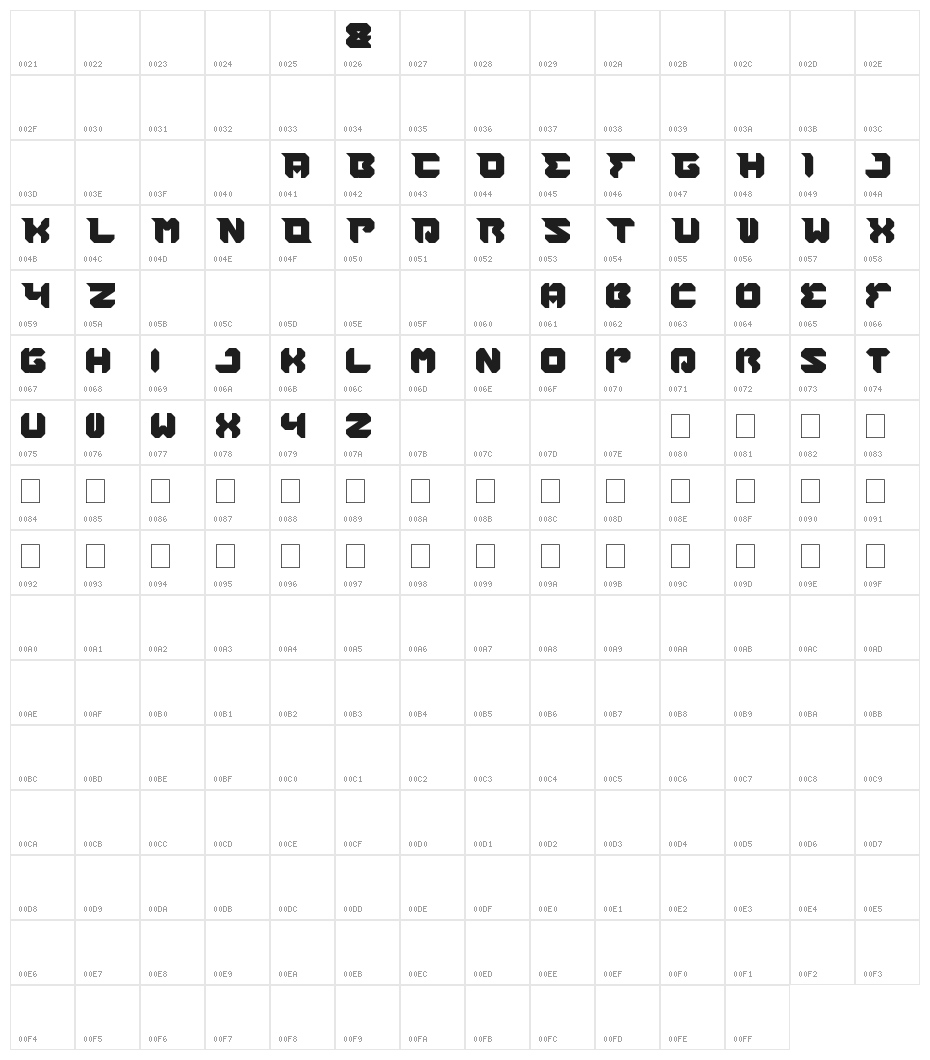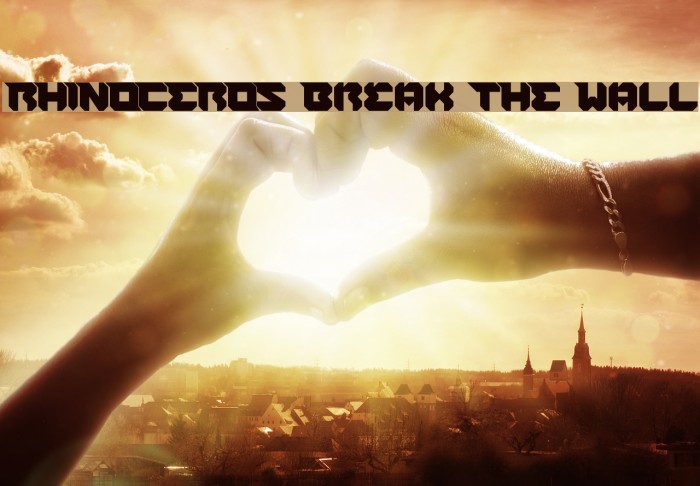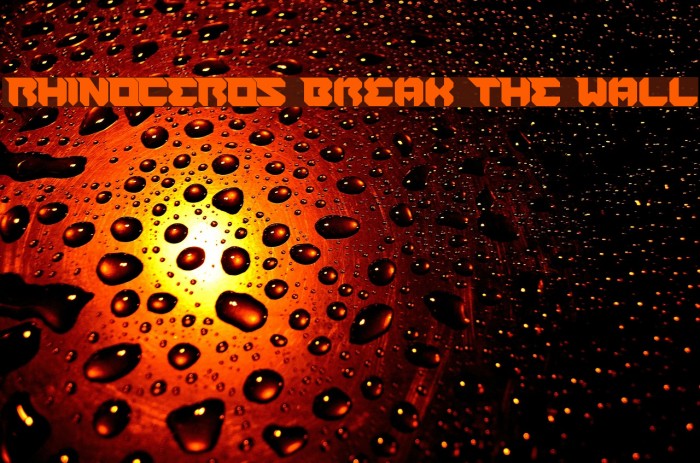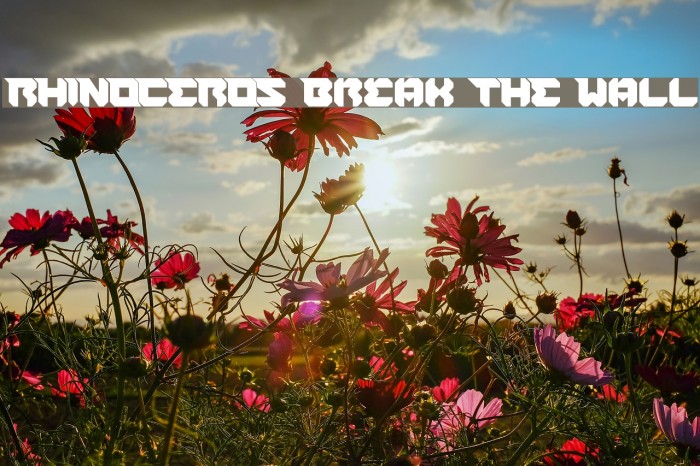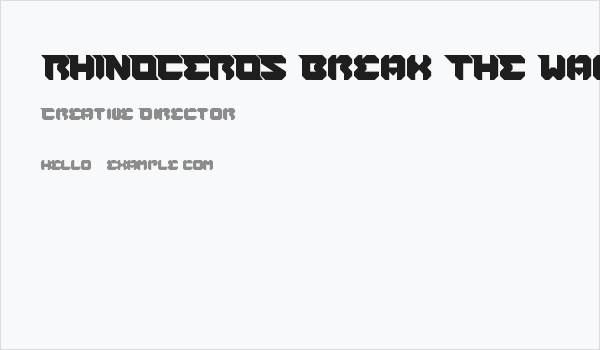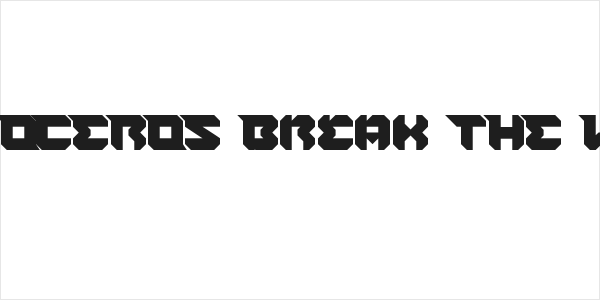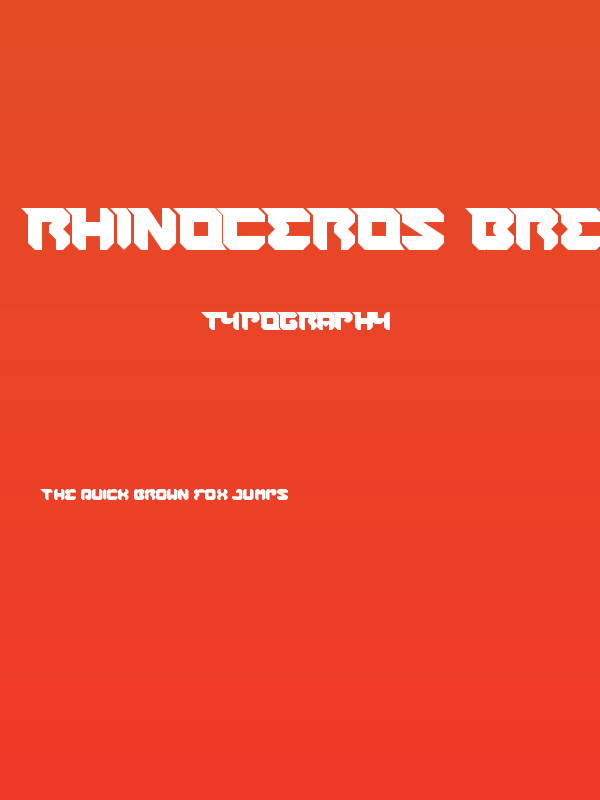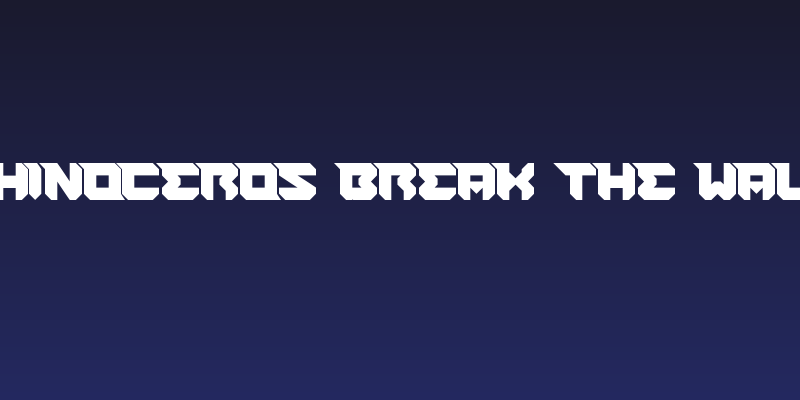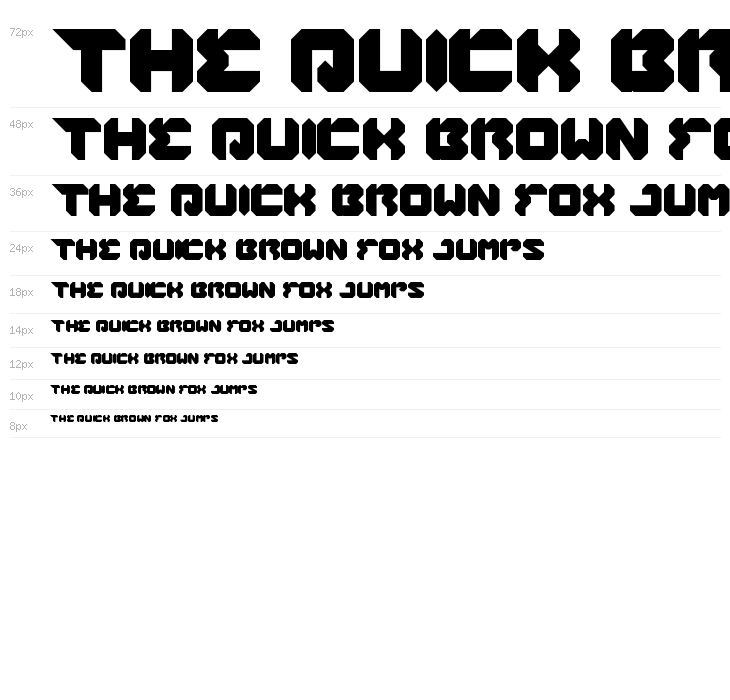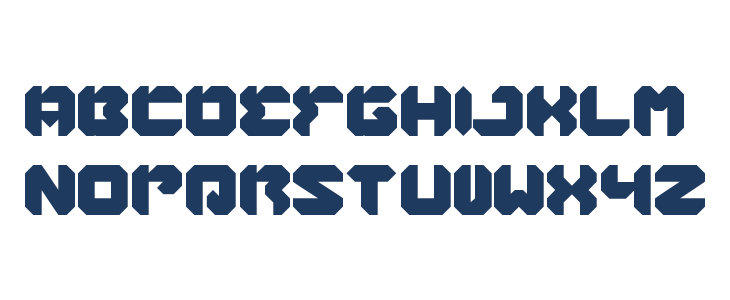
RHINOCEROS Break THE Wall Font
RHINOCEROS Break THE Wall Description
This font features a bold, geometric design with a strong, angular appearance. Each character is constructed with thick, block-like shapes that give it a robust and impactful presence. The style is reminiscent of industrial or futuristic themes, with a focus on sharp edges and a solid structure. The uppercase letters are particularly striking, with a uniform height and width that create a cohesive look. The font lacks lowercase letters and special characters, emphasizing its use for bold statements or titles. Its unique design makes it stand out, ideal for projects that require a strong visual impact.
| Proposed Projects | Ideal for posters, logos, video game titles, and branding that requires a futuristic or industrial look. |